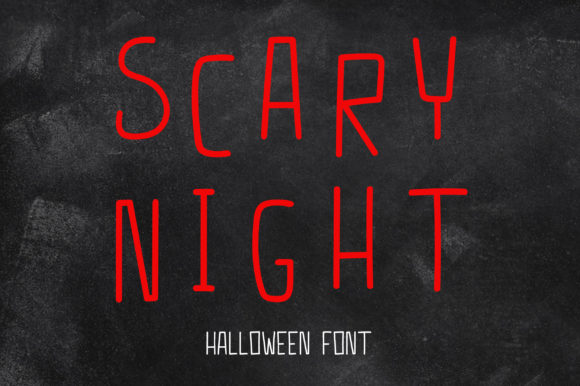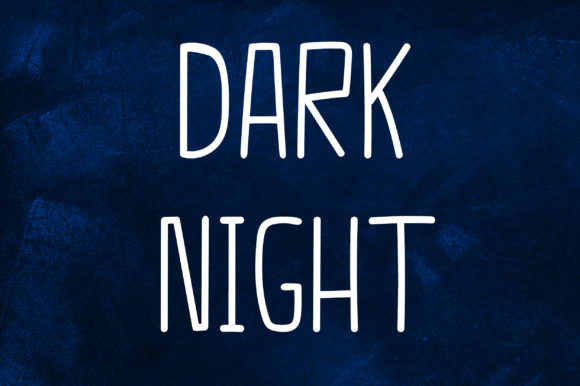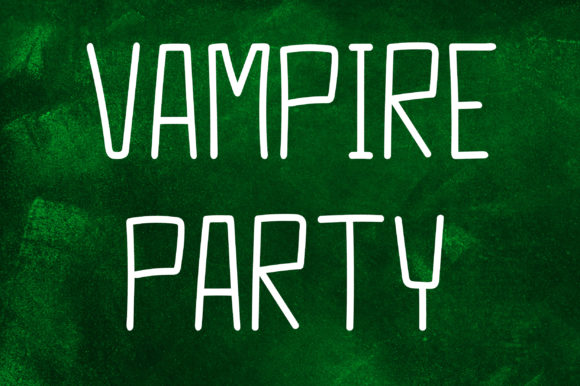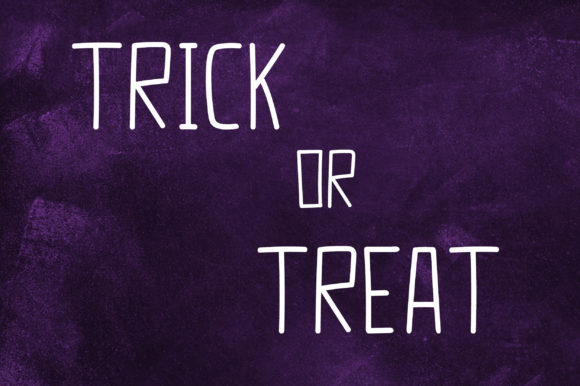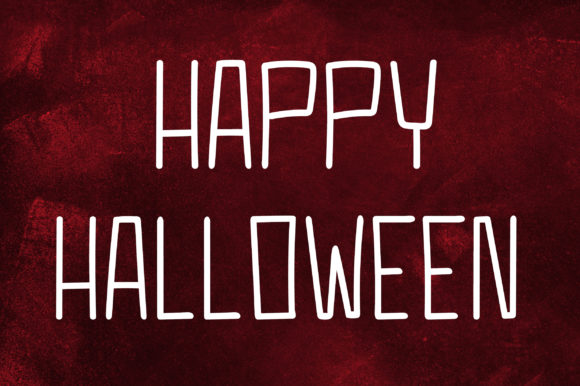
Scary Night Font
About Scary Night Font
Introducing “Scary Night,” a simple and neat handwritten font perfect for your Halloween-themed projects. This font will add a spooky and eerie touch to your designs, making them stand out in the darkness of the night. Let’s explore the features that make “Scary Night” an excellent choice for your Halloween creations:
Simplicity and Neatness: “Scary Night” boasts a clean and straightforward design, ensuring that your text remains easily readable while still capturing the essence of Halloween. Its simplicity adds a touch of elegance to the eerie atmosphere, making it a versatile font for various projects.
Halloween-Themed: As the name suggests, “Scary Night” is tailored for Halloween-themed designs. Whether you’re working on party invitations, spooky banners, haunted house flyers, or ghostly social media posts, this font will set the perfect mood for the occasion.
Eerie Vibes: The font’s style emanates an eerie and mysterious feeling, perfectly reflecting the spirit of Halloween. With “Scary Night,” you can add an element of suspense and spookiness to your designs, creating an engaging experience for your audience.
Perfect for Decorations: If you’re organizing a Halloween party or decorating haunted spaces, “Scary Night” will become a valuable asset. Its neat appearance allows you to craft eye-catching banners, signs, and posters that are sure to draw attention.
Versatility: Despite its Halloween theme, “Scary Night” is versatile enough to use beyond the spooky season. You can incorporate this font into horror-themed projects, haunted stories, ghostly book covers, and more, ensuring it remains a valuable addition to your font collection all year round.
Easy to Use: “Scary Night” is user-friendly and easy to work with, allowing you to quickly integrate it into your designs. The legible letters and consistent strokes enable a smooth typing experience and ensure that your message gets across effectively.
Attention-Grabbing: The unique and distinctive appearance of “Scary Night” ensures that your text won’t go unnoticed. It grabs attention with its haunting charm, making it a compelling choice for headers, titles, and other important elements in your designs.
In summary, “Scary Night” is a simple, neat, and eerie handwritten font that adds a captivating touch to your Halloween-themed projects. Its spooky vibes and versatility make it an ideal choice for various Halloween decorations, party invitations, and social media posts. If you want to create designs that stand out in the darkness of the night and give your audience a thrilling experience, “Scary Night” is the font to choose. Embrace the spooky spirit and let “Scary Night” bring a hauntingly delightful charm to your Halloween designs!